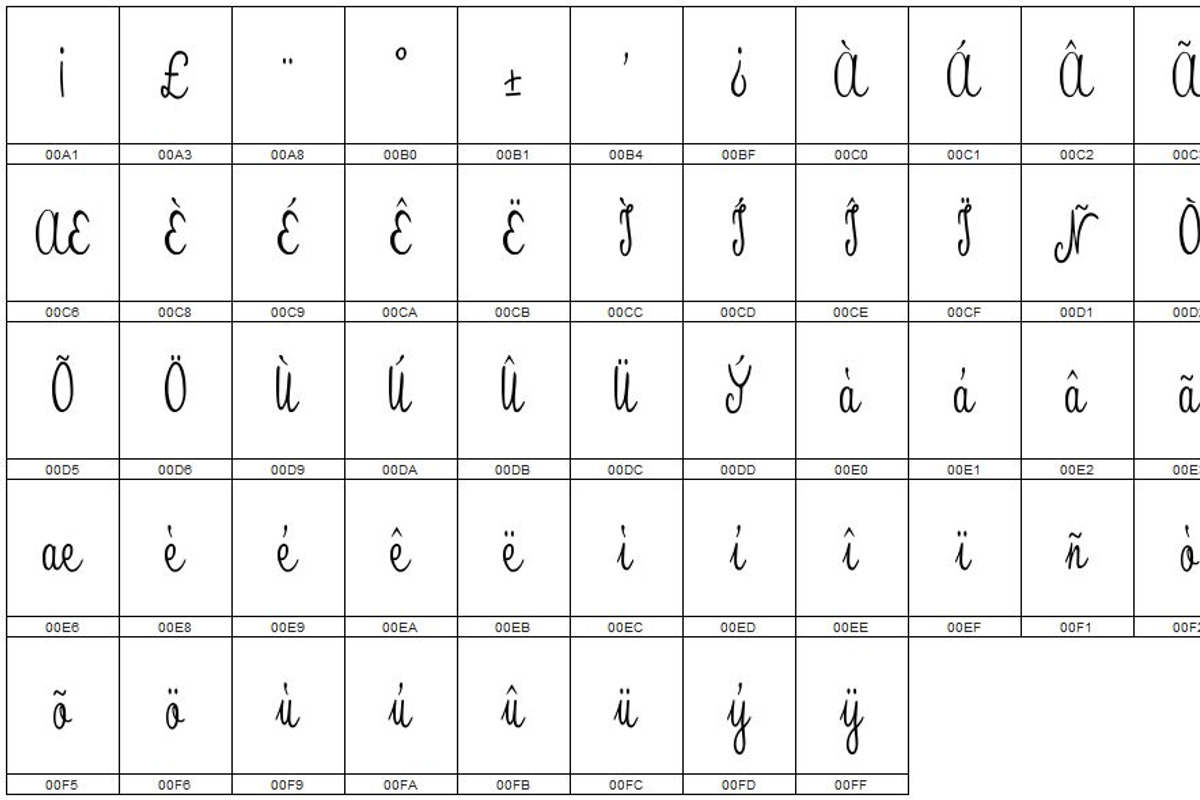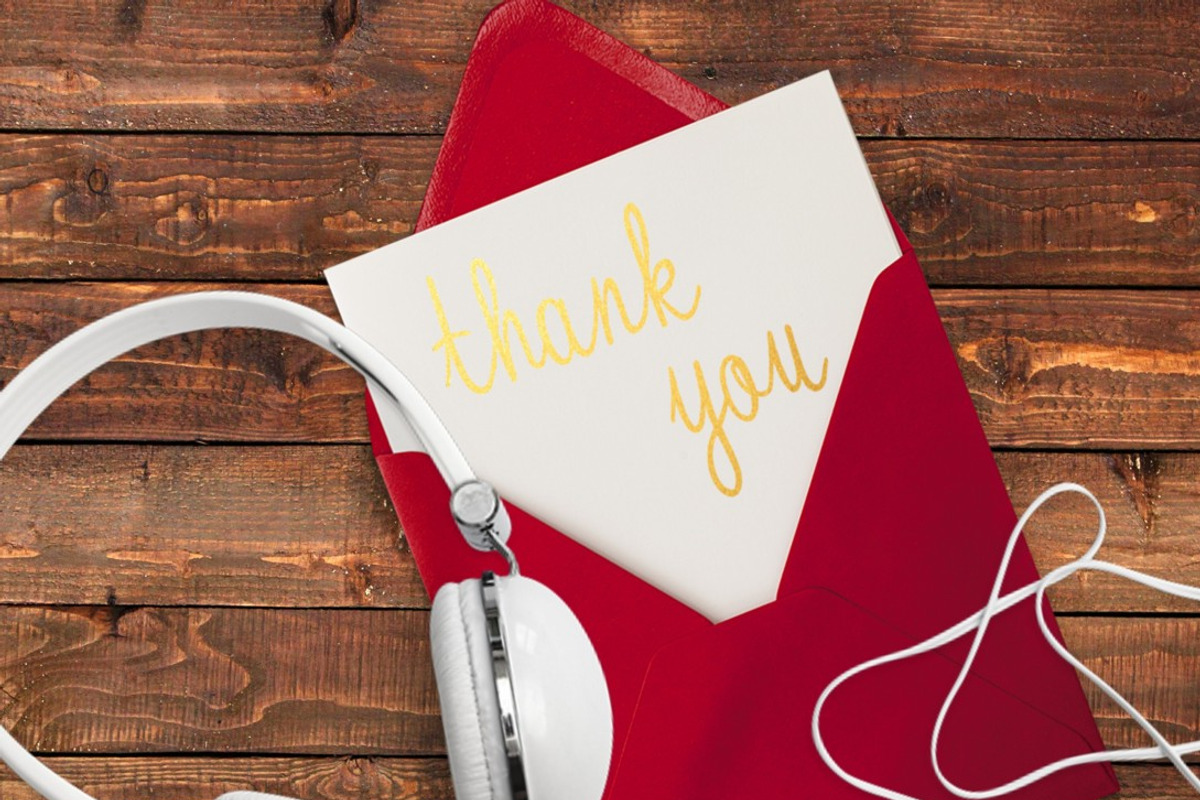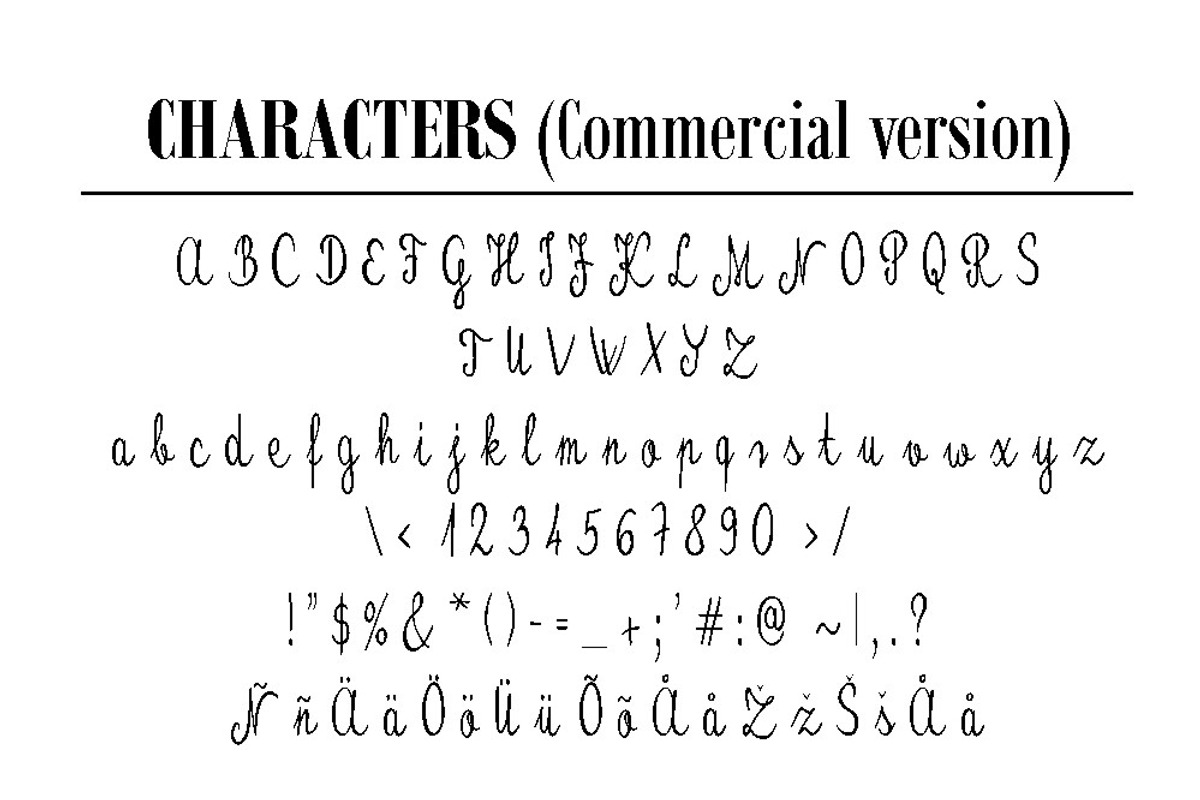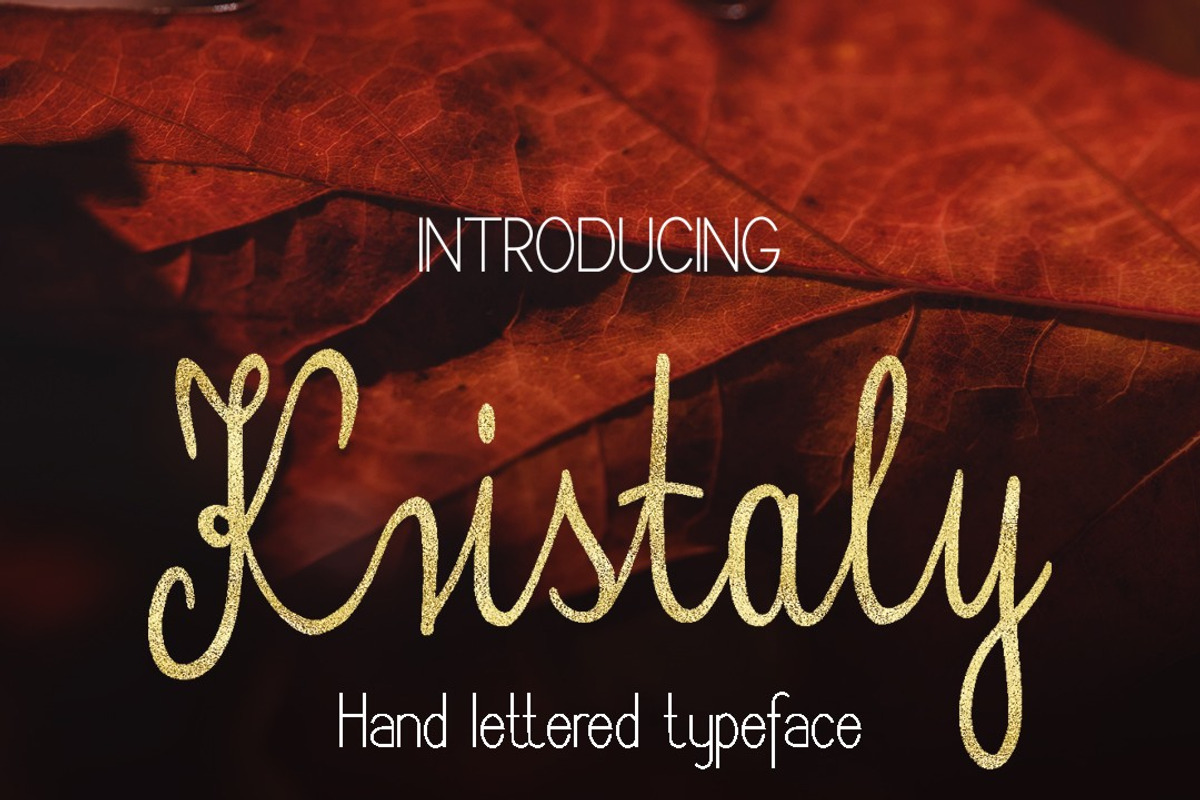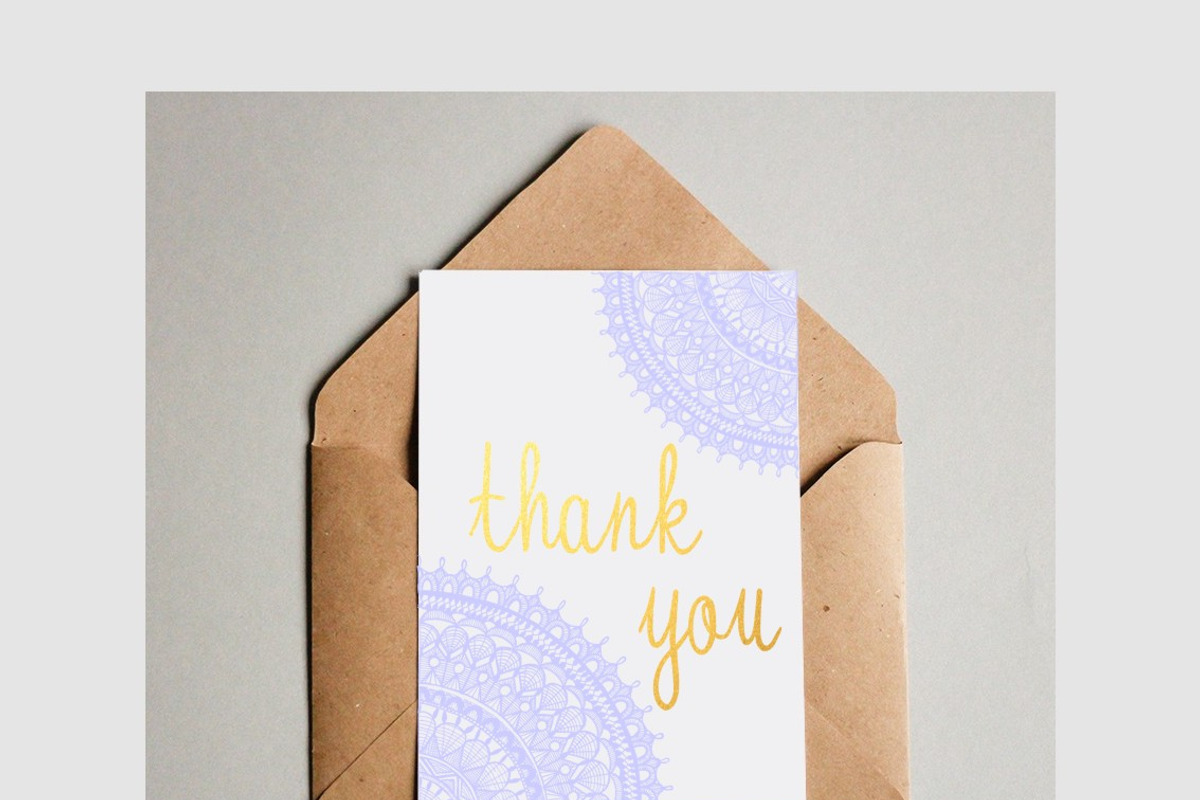
Kristaly handwritten Font
Kristaly handwritten Font by Digital Typeface Studio is a font selected for branding, posters, packaging, typography.
Why Kristaly handwritten Font is worth a look
Kristaly handwritten Font by Digital Typeface Studio fits naturally into Branding, posters, packaging, typography.